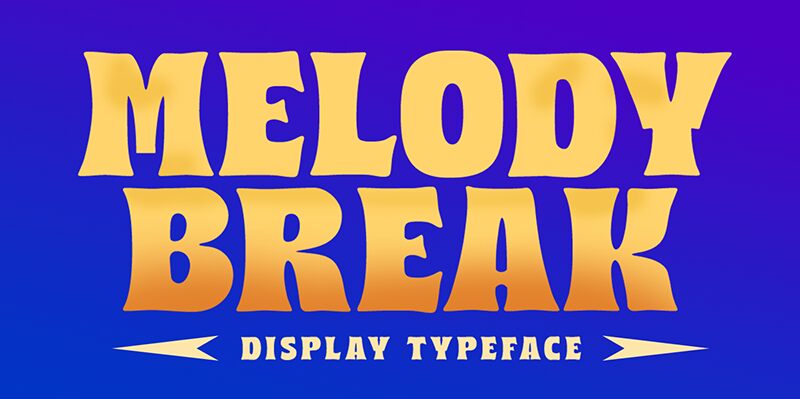
Melody Break font is a bold retro display typeface designed by Letterhend Studio. It features a chunky whimsical style which grabs immediate attention thanks to its expressive and impactful presence. The free font has an artistic flair which is shown in its smart combination of curved and straight letter lines.
Get the most out of Melody Break by using it in poster and advertisement designs. Furthermore, apply it within packaging, book covers, game design (all types), stationery items, website hero section texts, or even printed clothing items such as T-shirts and sweaters. The font is also perfect for logotypes!